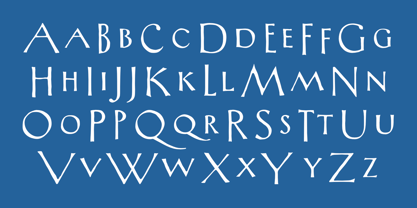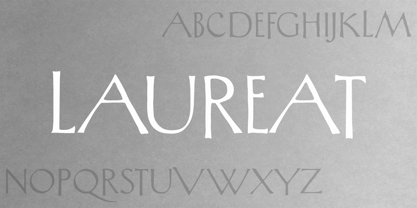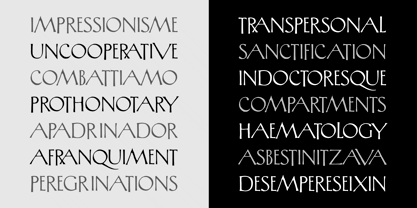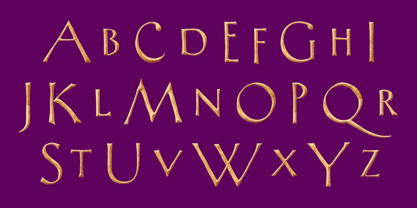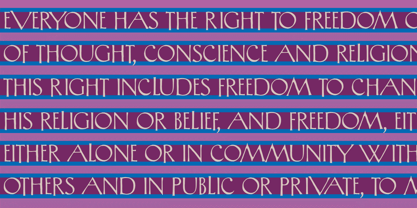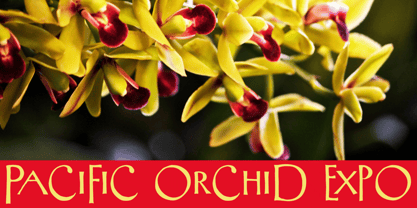
Laureat™
La familia tipográfica Laureat fue diseñada por Jason Castle y publicada por CastleType. Laureat contiene 1 estilos.
Based on hand-drawn letters from a Russian poster. The Cyrillic version is still in development. Uppercase only, but each letter has four different sizes for creating very interesting typography.